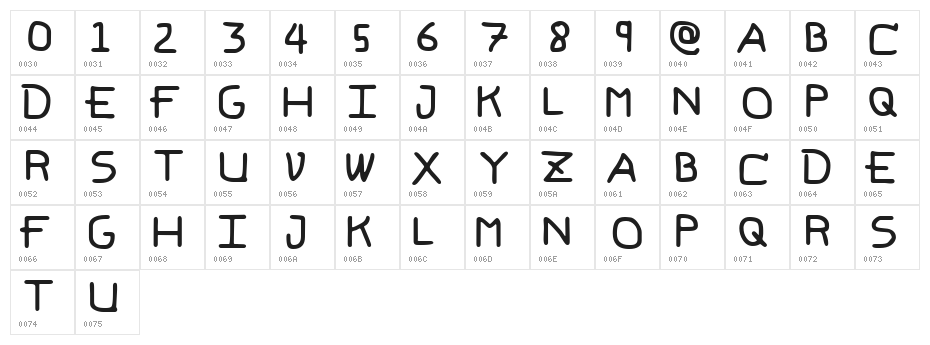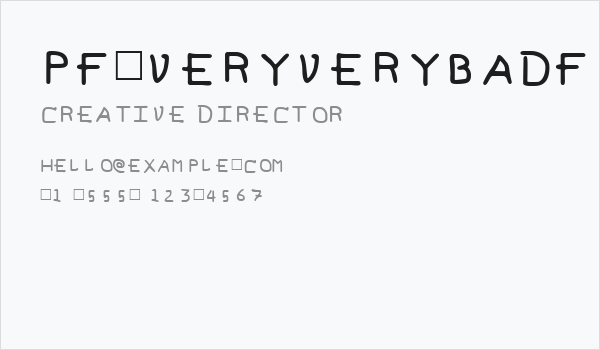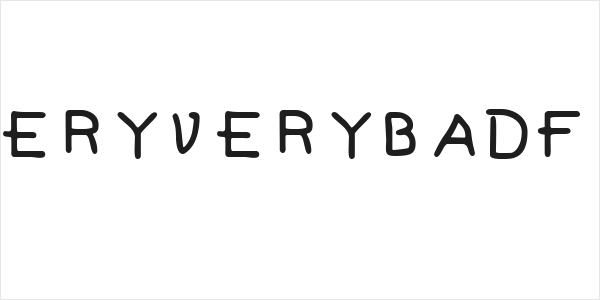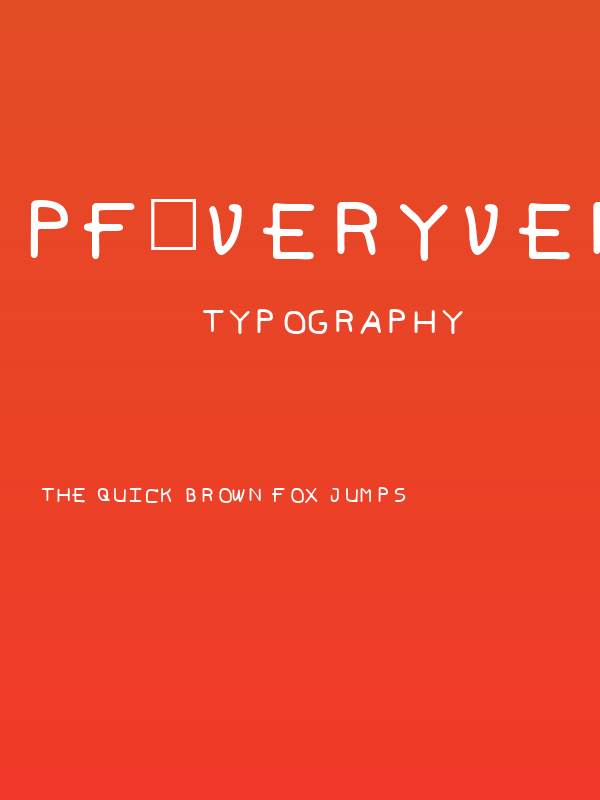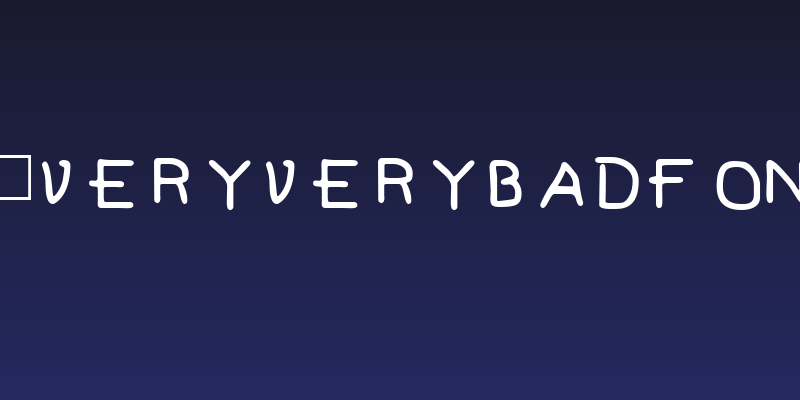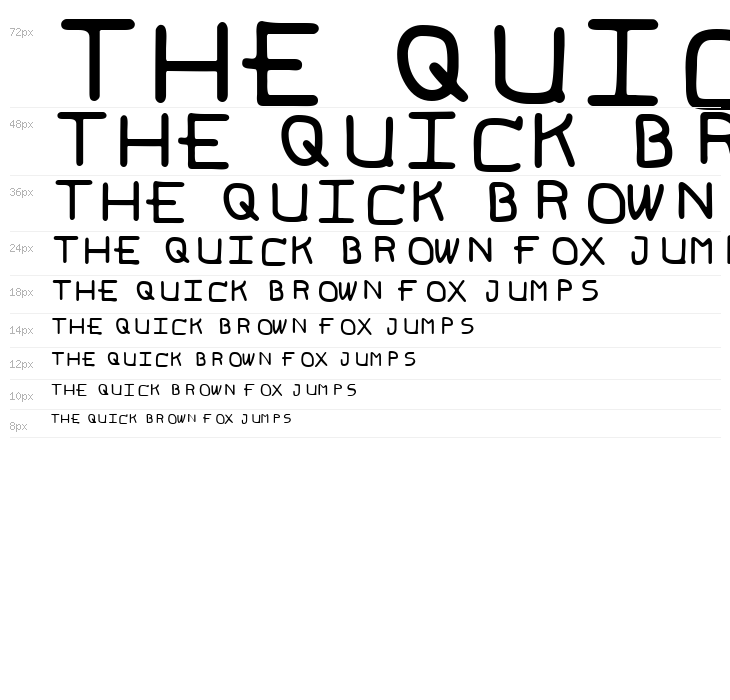
Pf_veryverybadfont6 Font
Pf_veryverybadfont6 Description
This font features a playful, handwritten style with rounded edges and a casual appearance. The characters are slightly irregular, giving it a whimsical and informal feel. The uppercase and lowercase letters maintain a consistent height, while the numbers are distinct and easy to read. The overall design is simple yet charming, making it suitable for projects that require a friendly and approachable look. The font's unique character shapes add a touch of personality, making it stand out in creative applications.
| Proposed Projects | Ideal for children's books, greeting cards, informal invitations, and playful branding. |